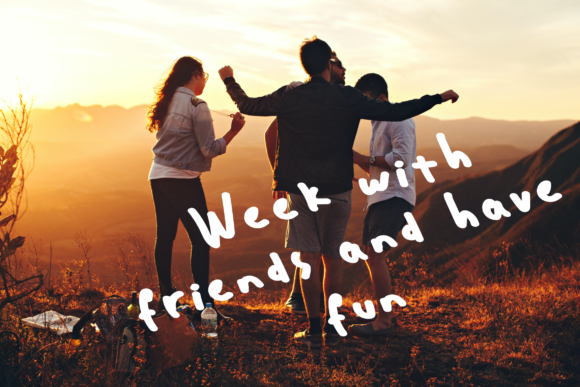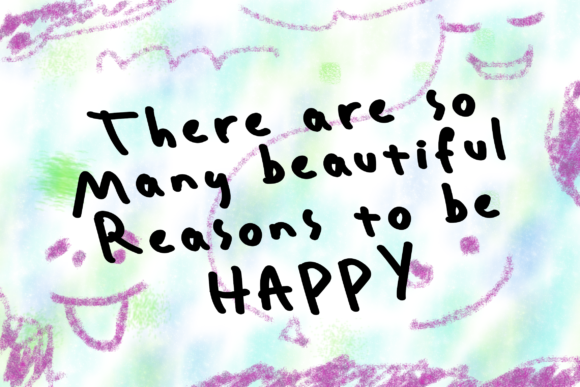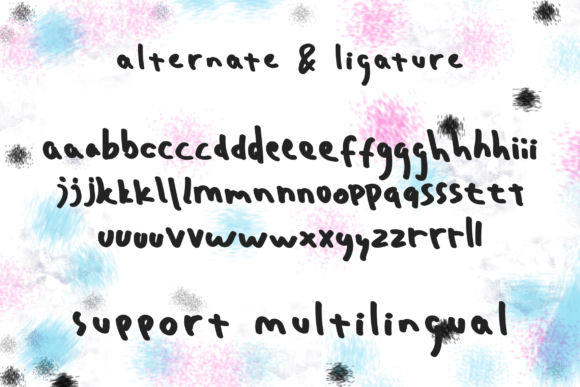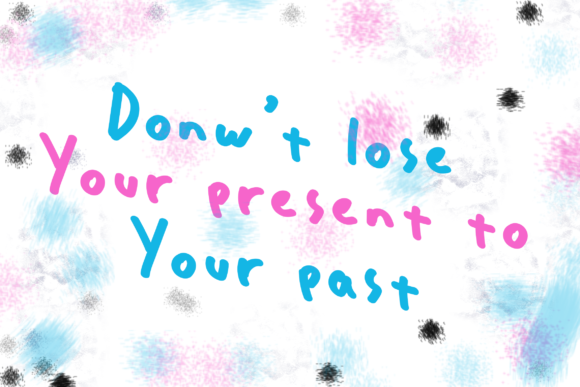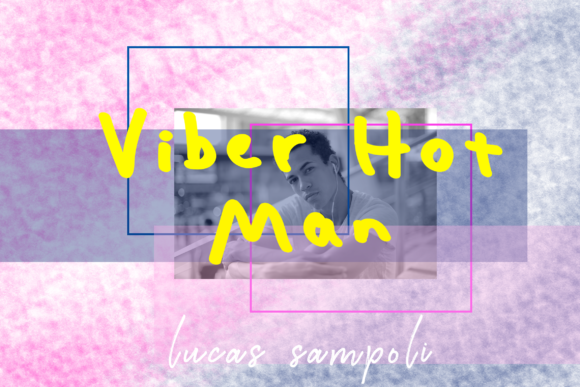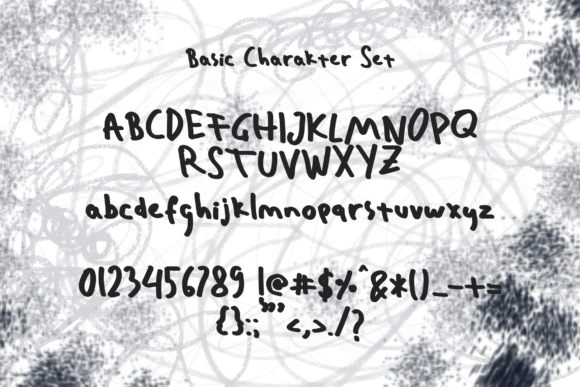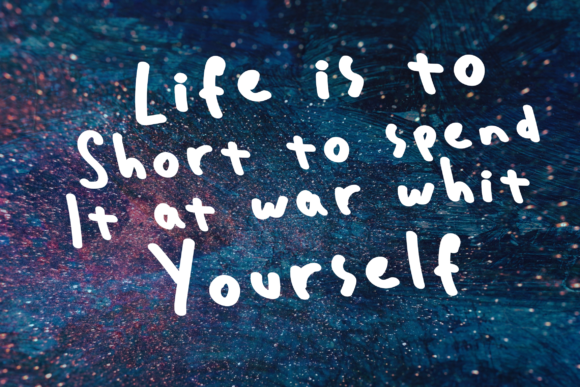
Blankide Font
About Blankide Font
Blankide is a cute and quirky handwritten font. Its natural and unique style makes it incredibly fitting to a large pool of designs. The only limit is your imagination!